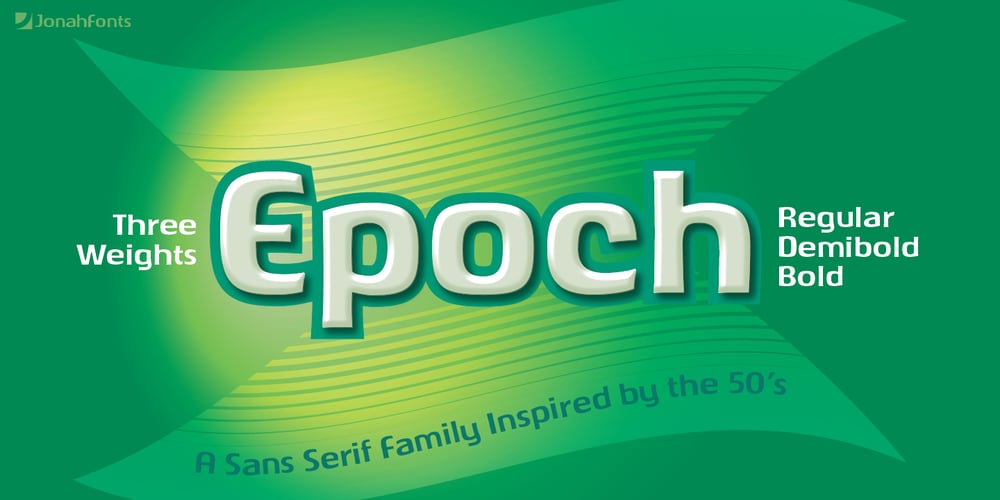
Epoch Font Family was designed by John Nahmias and published by Jonahfonts. Epoch contains 3 styles and family package options. A very graphic font with emphasis on legibility, dynamics and modern. Recommended for posters, titles, book covers, books, greeting cards, signage, packaging, invitations, magazine articles and advertising.